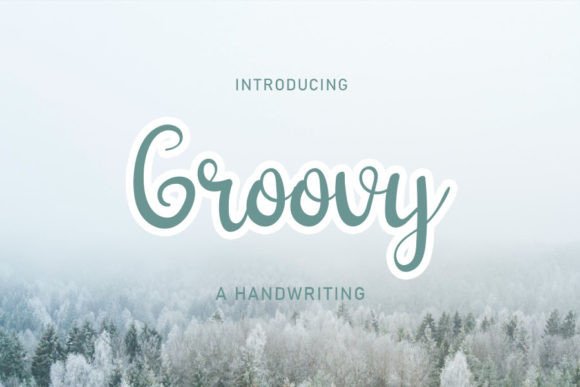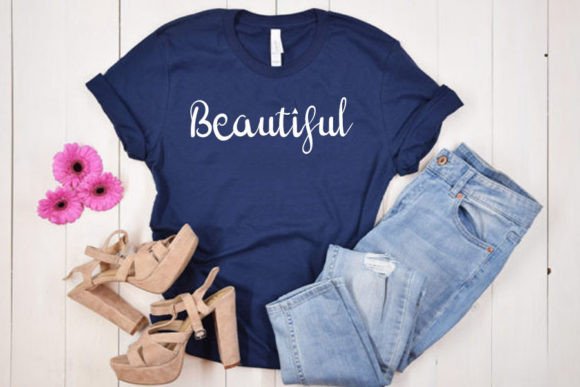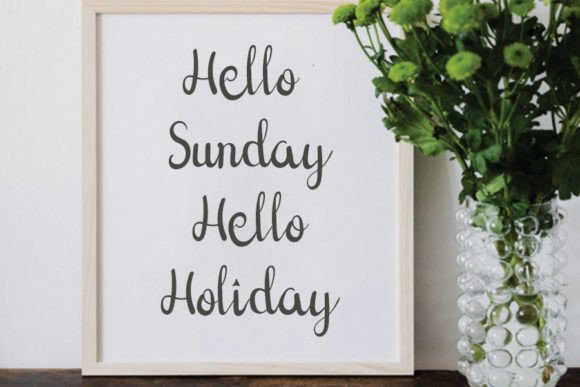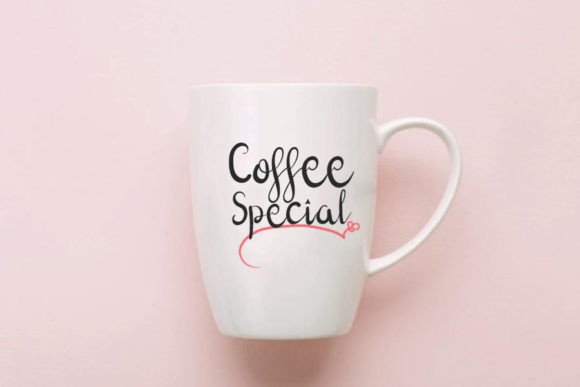
Groovy Font
About Groovy Font
“Groovy” is a flowing handwritten font that is characterized by its elegant touch. It is perfect for a wide range of creative projects and is ideal for adding a unique and original look to your designs. From letterheads and titles to stationery and more, “Groovy” offers an original and versatile style that will appeal to a variety of crafty ideas.
One of the standout features of “Groovy” is its ability to convey an elegant and artistic vibe. The font’s characters possess a flowing and graceful quality that adds character and style to your projects. “Groovy” is a versatile choice for projects where you want to create a distinctive and visually appealing look.
The adaptability of “Groovy” ensures that it can be effectively used across different creative applications. Whether you’re designing stylish letterheads that grab attention, crafting elegant and flowing titles, creating unique stationery with a touch of artistry, or exploring any other design project that demands a sense of elegance and originality, “Groovy” seamlessly adapts to your creative vision.
“Groovy” stands out as a font that brings a sense of authenticity and artistic flair to your designs. Its flowing and handwritten style adds a personal and genuine touch to your projects, making them feel both elegant and unique. “Groovy” is a font that encourages you to embrace your creativity and infuse your designs with a touch of artistry.
Incorporating “Groovy” into your design projects will likely result in outcomes that are not only elegant and original but also full of artistic charm. Its flowing and graceful appearance makes it an excellent choice for creating designs that resonate with a sense of style and creativity. Embrace the elegance and originality of “Groovy” in your next project, and watch as it elevates your typography and overall design to a level of artistry that captures attention and admiration.